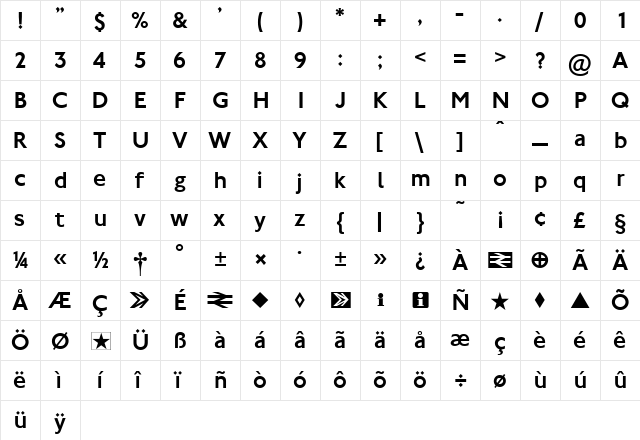
NJMedium Regular
Design Context for NJMedium Typeface
NJMedium offers clean, dependable letterforms without strong stylistic allegiance, making it a practical choice for designers who need flexibility.
Pro Tip: Use NJMedium in both headline and body roles to test its range before committing to a single application.